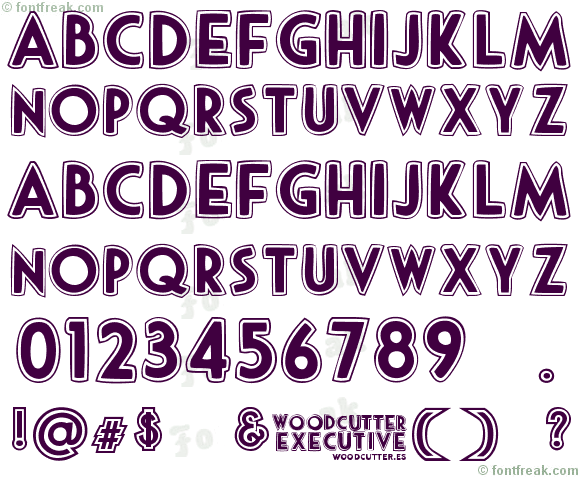
woodcutter executive
About woodcutter executive
Discover the woodcutter executive font, designed by Woodcutter Manero, a striking display typeface perfect for making a bold statement. This font falls into the decorative category, characterized by its distinctive stroke weight and eye-catching design. The thick, robust letters feature a playful yet authoritative aesthetic that commands attention while maintaining an air of sophistication. The contrast between the bold strokes and the finely detailed edges enhances its visual appeal, making it suitable for a variety of creative projects.
The woodcutter executive font is ideal for use in wedding invitations, where its unique style can add a touch of elegance and personality. It's also a fantastic choice for movie posters, capturing the essence of a film with its bold presence. Restaurant menus can benefit from this typeface, as it brings a sense of creativity and style that can elevate the dining experience. Additionally, small business branding materials will shine with this font, helping to convey a memorable and professional image to potential customers.
Targeting graphic designers, small business owners, and content creators, the woodcutter executive font is a versatile asset for anyone looking to enhance their visual communication. Its free downloadable status makes it accessible for various projects, allowing users to incorporate this striking typeface without financial constraints.
What sets the woodcutter executive font apart is its harmonious blend of fun and professionalism. The unique design elements make it not just a font, but a statement piece that enhances any project. Whether you are looking to inject character into your designs or create a strong brand identity, this font offers an unparalleled combination of style and impact. Don't miss the opportunity to explore the woodcutter executive font free download and elevate your creative endeavors.